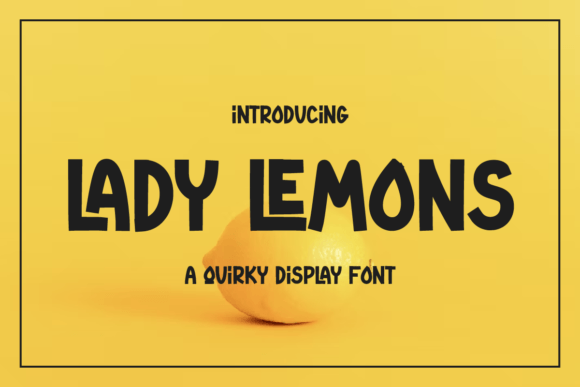
Unleash your creativity and embark on a typographic adventure with Lady Lemons, the font that spells elegance and sophistication. Designed with a unique, bold style and sleek lines, Lady Lemons is the perfect companion for your crafting projects, adding a touch of charm to every creation.
Dive into a world of possibilities with Lady Lemons, the versatile font that caters to your every whim. Whether you're crafting heartfelt Mother's Day cards, designing captivating business logos, or seeking to elevate your print projects, Lady Lemons rises to the occasion with grace.
Experience the beauty of Lady Lemons' ligature feature, a powerful tool that unlocks a realm of stunning designs. Effortlessly create elegant letter combinations and flourishes that add a touch of magic to your projects. Let your imagination run wild as you explore the endless possibilities, leaving a lasting impression on your audience.
Whether you're a seasoned designer seeking to expand your font collection or a novice crafter eager to add a touch of sophistication to your projects, Lady Lemons is your perfect companion. Its versatility and ease of use make it an indispensable asset for any creative endeavor.
Embrace the allure of Lady Lemons today and embark on a journey of typographic exploration. Discover the boundless creativity that awaits you as you transform your designs into masterpieces. Let Lady Lemons be your guide into the world of enchanting typography, where your imagination knows no limits.